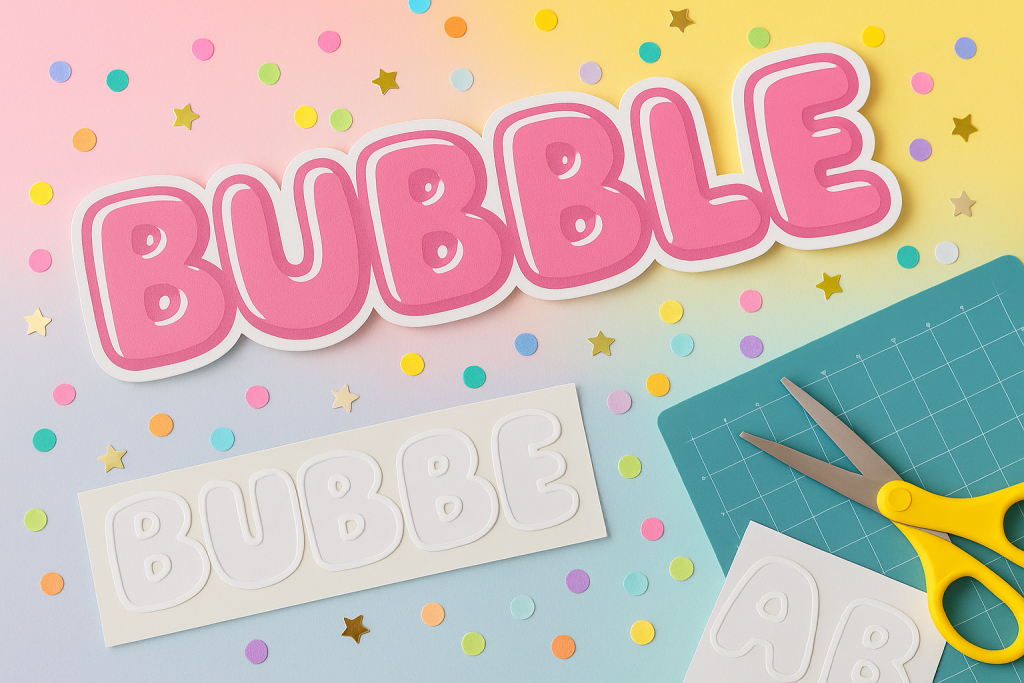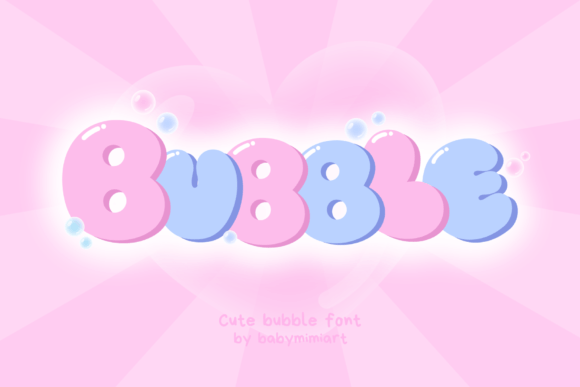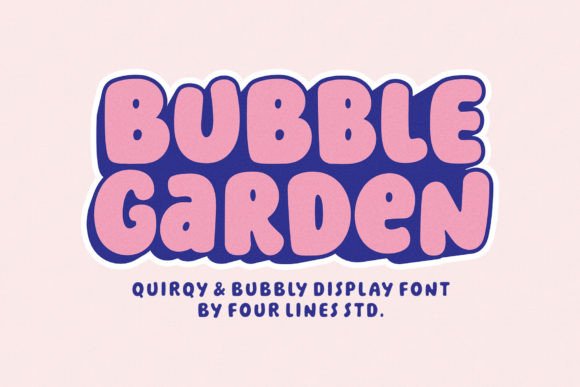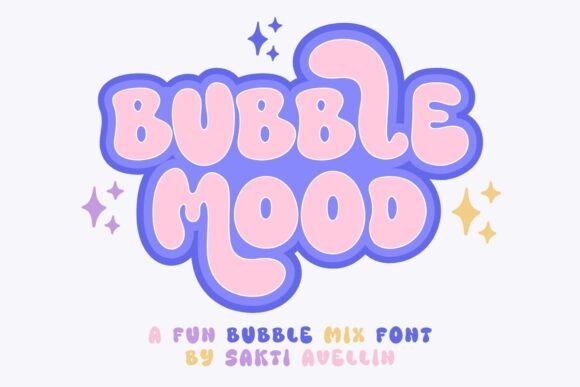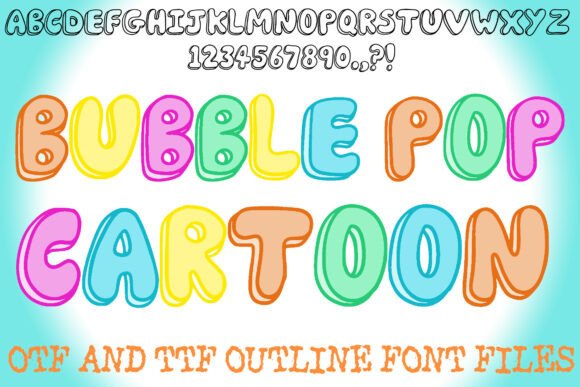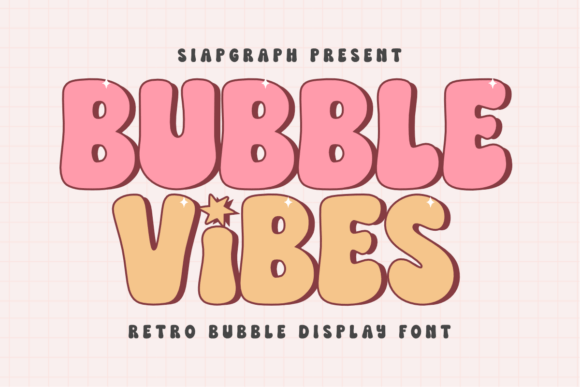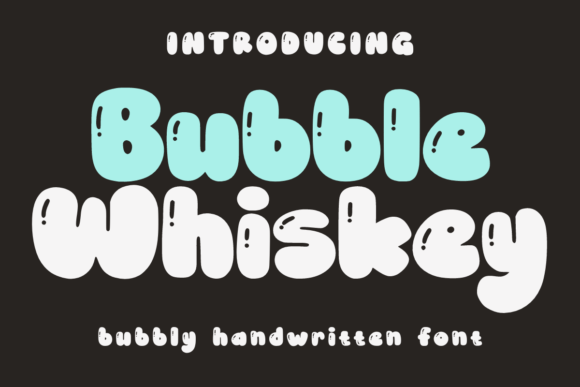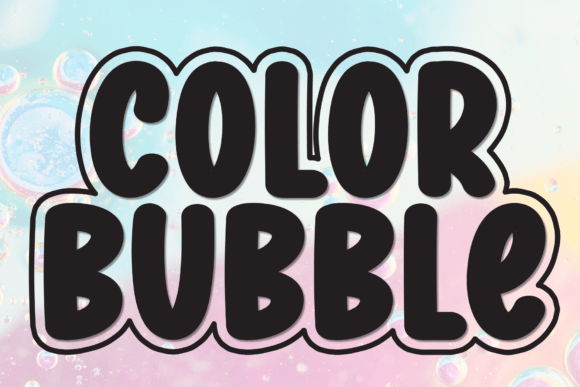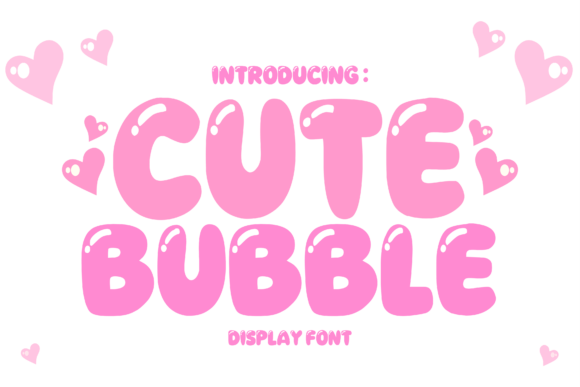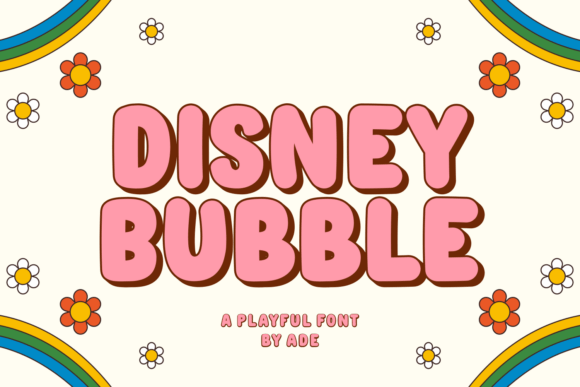
Bubble Fonts: Rounded, Kawaii & Outline Styles
This guide to bubble fonts covers rounded, kawaii and outline/3D styles for kids crafts and stickers – plus quick sizing rules so your text reads instantly.
Rounded bubble letters spelling “BUBBLE” with white sticker outline on a colorful paper background  -  kid-friendly, high-contrast, readable for stickers and labels.
Editor’s top picks – Bubble Fonts
Rounded Bubble
Soft, pillowy letters for friendly titles, reward charts and party banners.
Kawaii / Cute
Playful faces with big counters; great for kids stickers and classroom labels.
Outline / Sticker
Hollow forms made for stacked headlines and layered sticker effects.
3D / Inflated
Glossy, inflated looks for thumbnails and birthday signage – use sparingly.
Graffiti Bubble
Street-style curves; pick cleaner sets for kids crafts and school posters.
Labels & Tags
Chunky, high-contrast options that stay readable on tiny circles and tabs.
How to choose a bubble font
• Readability first: test at 24–36 px (sticker size). Keep open counters and clear shapes.
• Stroke weight: medium–bold works best; super-thin or overly bloated forms lose clarity.
• Outline vs fill: outline fonts are great for layered stickers; filled faces pop on photos.
• Weeding & cutting: for cutting machines, prefer fewer inner holes and smoother curves.
• Family range: look for regular/outline/inline/3D styles to mix headlines and badges.
Font pairing recipes
• Outline Bubble + Solid Fill: Stack an outline headline over a solid subhead for contrast.
Project ideas
• Stickers & badges: names, rewards, birthday favors.
• Party banners: big bubble titles + outline shadows.
• Classroom labels: bins, cubbies, schedule cards.
• Printable kits: planners, checklists, habit trackers.
Small-size readability: quick checks
• Print a test at 25–30 mm sticker width; adjust tracking +5–10 for tight forms.
• Keep inner holes open (A, B, R, e); avoid ultra-squished widths.
• For dark photos, add a white sticker outline (2–3 mm) for instant contrast.
FAQ – Bubble Fonts
What are bubble fonts best for?
Kids crafts, stickers, classroom labels, party banners and playful thumbnails where rounded, friendly shapes feel on-brand.
Are they readable at small sizes?
Yes, if you pick styles with open counters and thicker strokes. For mobile thumbnails, test at 40–60 px height and add a thin outline to keep edges crisp.
Cutting with Cricut/Silhouette – any tips?
Keep minimum stroke at ~1.2–1.5 mm (≈0.05–0.06″), weld overlapping letters, and use Offset (0.4–0.8 mm) to create a sturdier contour for easier weeding.
Best export for stickers?
Flatten to PNG at 300 DPI with a 1–2 mm white border (or colored stroke) for clean kiss-cuts. For layered stickers, keep the bottom layer solid.
Good font pairings?
Bubble headline + clean sans (Grotesk/Humanist) for body. Avoid pairing with other heavy rounded displays that compete for attention.
When to use rounded sans instead of bubble?
Rounded sans works for more formal, UI-like labels. Choose bubble fonts when you want a playful, hand-drawn look with thicker, cartoon-style strokes.
My vinyl tears on tight curves. Fix?
Slow the cut, lower pressure slightly, and Simplify paths to reduce nodes. If needed, increase the offset contour to remove tiny notches.